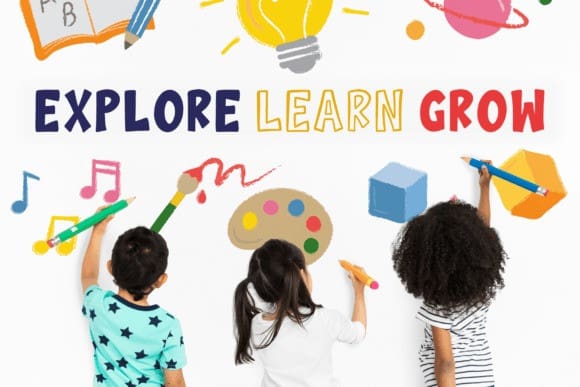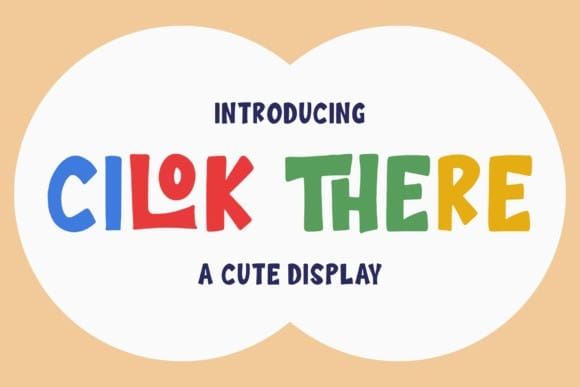
Cilok There Font
Cilok Thereis Font a cute and colorful display font from Perspectype Studio, suitable for a variety of projects such as logos, branding projects, homeware designs, product packaging, mugs, quotes, posters, shopping bags, t-shirts, book covers, name card, invitation cards, greeting cards, label, photography, watermark, special events, and all your other lovely projects that need a beautiful script taste.